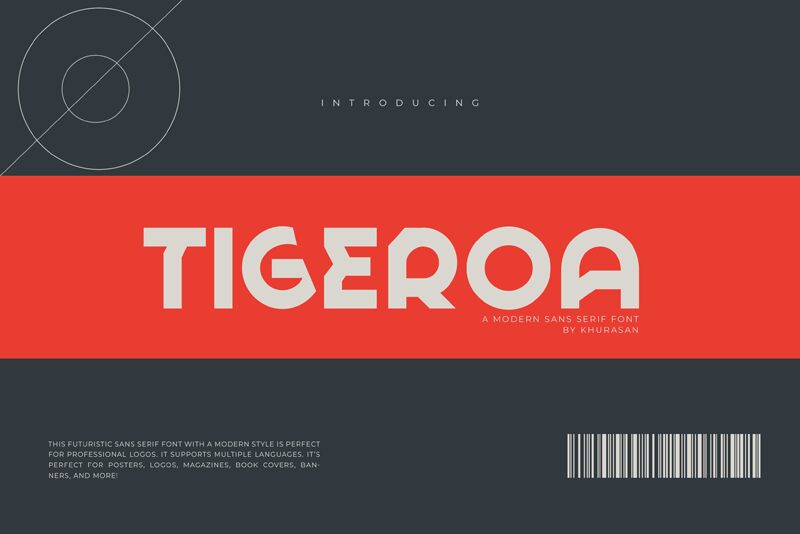
Tigeroa
Tigeroa font by Khurasan is a free bold geometric display font. Built on plump, near-circular bowls and soft, shaved corners, it hits that sweet spot between chunky presence and easy rhythm. The tight apertures and smooth, pillowy curves give headlines a confident thump without feeling harsh, while the steady monoline weight keeps everything clean and modern.
Using Tigeroa, your titles snap into focus on logos, packaging, tech landing pages, event posters, gaming covers, and social banners. This free font thrives large, where its compact shapes stack into sturdy, upbeat wordmarks. For body copy, pair it with a light, neutral grotesk to keep contrast crisp, or track it a touch wider when you need extra breath in dense layouts.